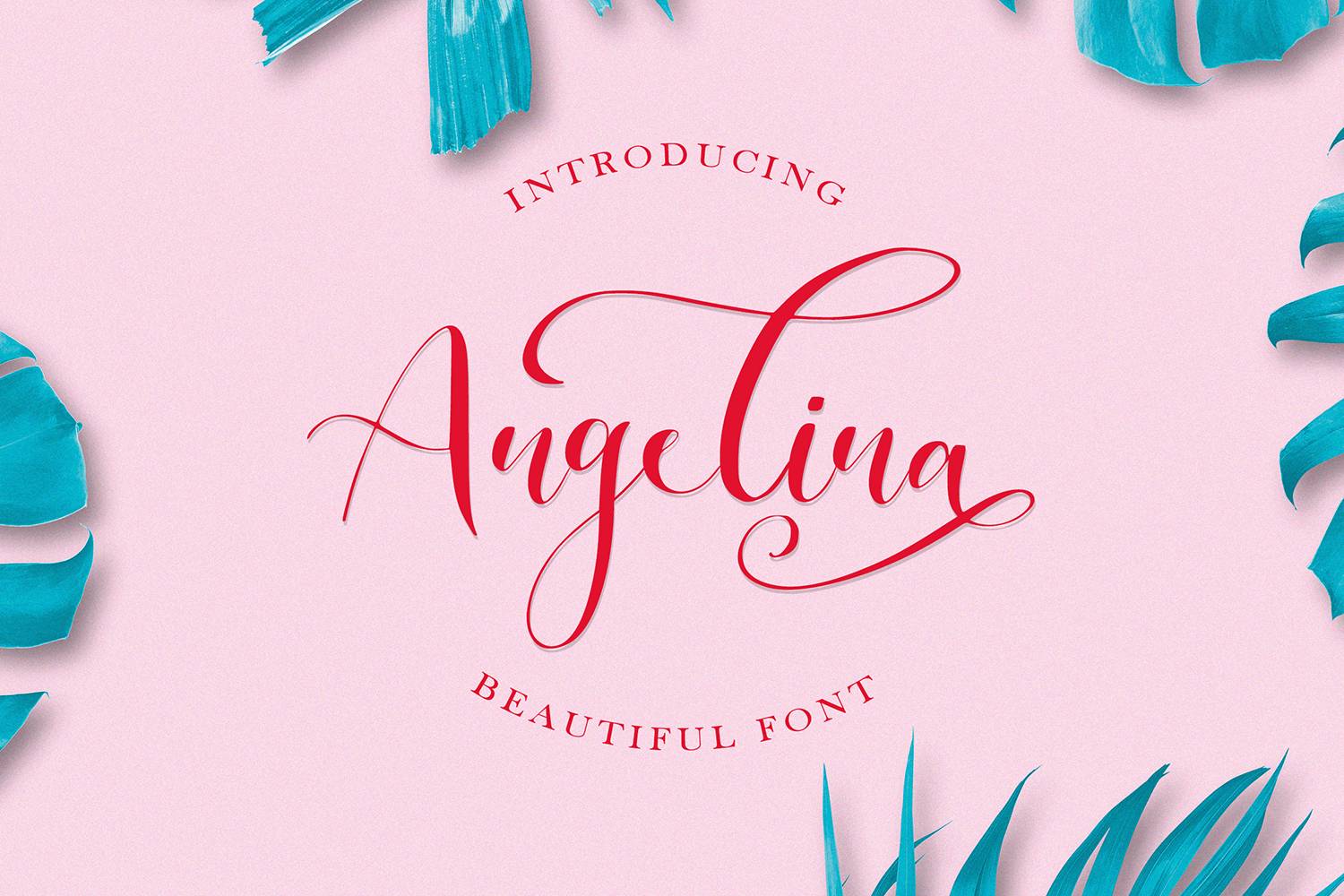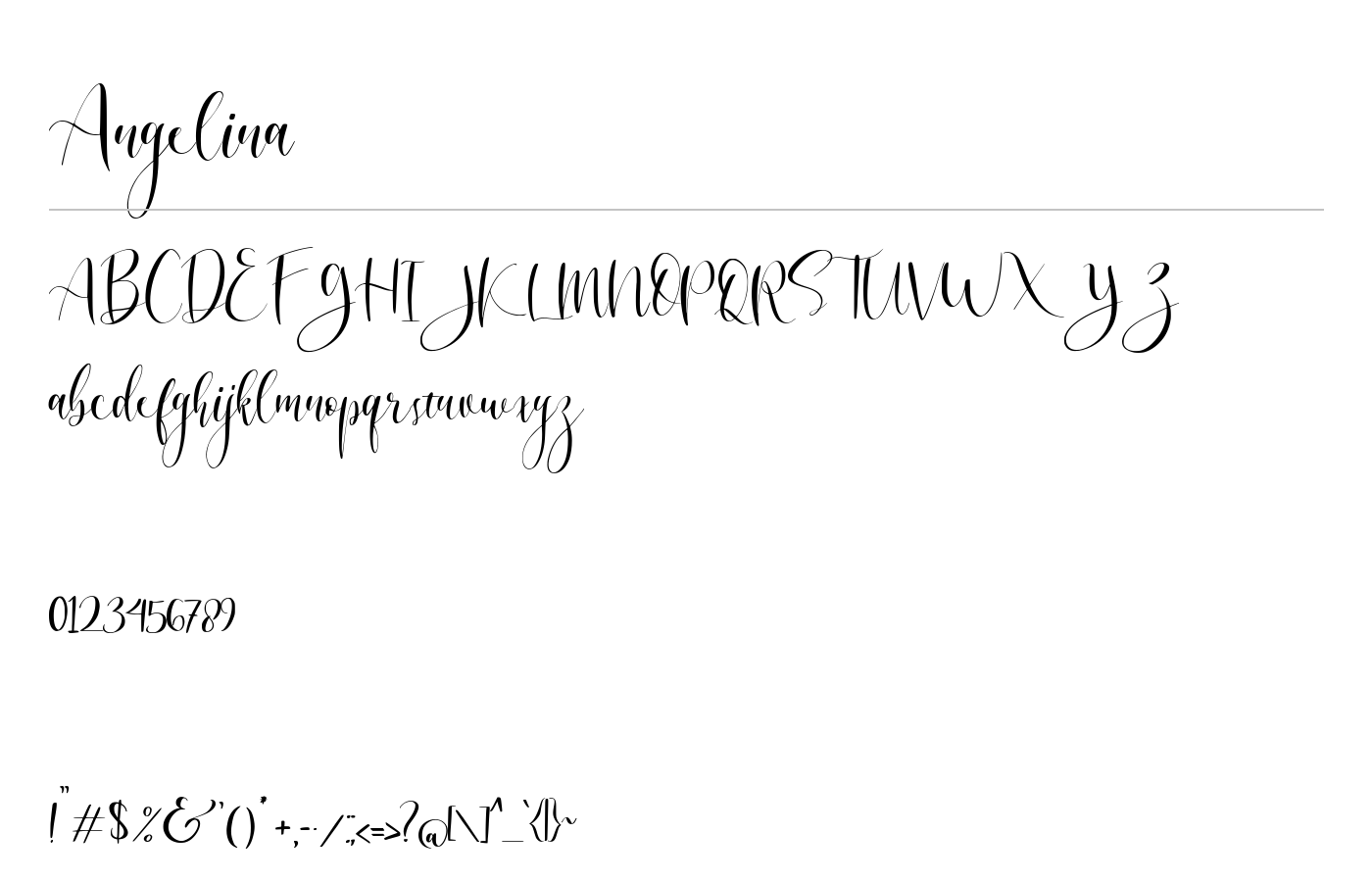
Angelina is a delicate, elegant script font with fine, flowing strokes and a high contrast between thick and thin lines that give it a graceful, handwritten feel. Its narrow letterforms and stylish flourishes make it perfect for invitations, branding, and any design that seeks a sophisticated, feminine touch. This font works beautifully in decorative headlines, logos, and luxury packaging where a refined, artistic vibe is desired.
Angelina Font
About Angelina Font
| Font family | Angelina Font |
| Designer | JunCreative (Muhamad Junaid) @mjart96 |